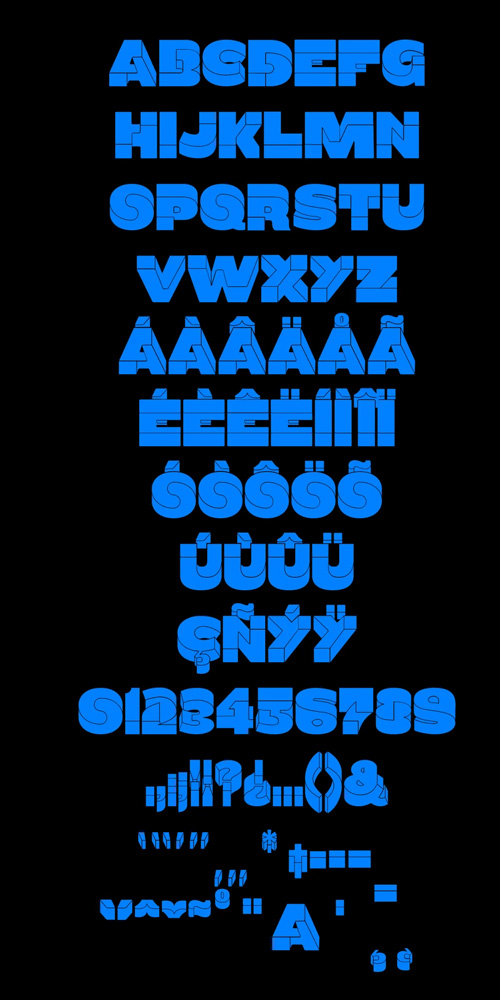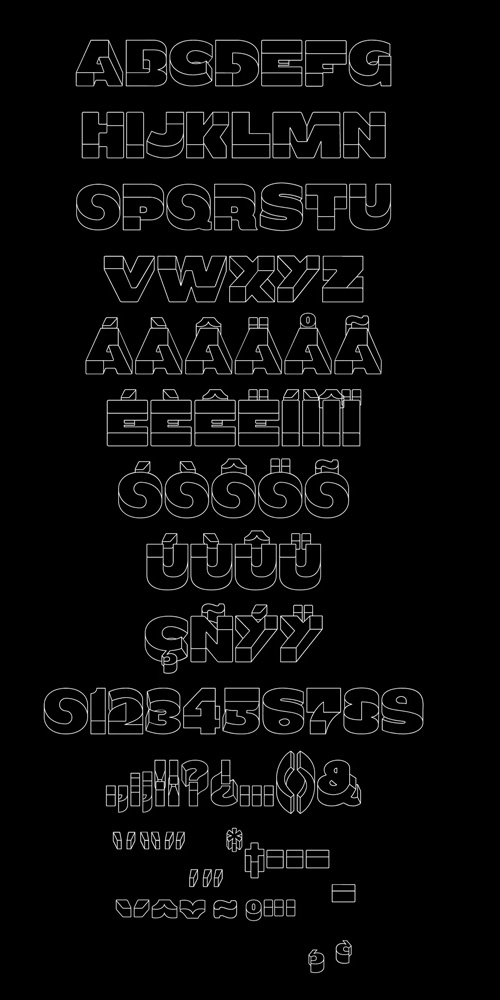
- A little while ago, Birgit did some work for a client and started to play around with Eschers impossible shapes. In the end Birgit got so addicted by the system that she made a complete font, based on impossible shapes. The name Oxymora: An oxymoron is a term for a figure of speech. It is made up of two or more words that seem to be opposite to each other, or actually are opposite.